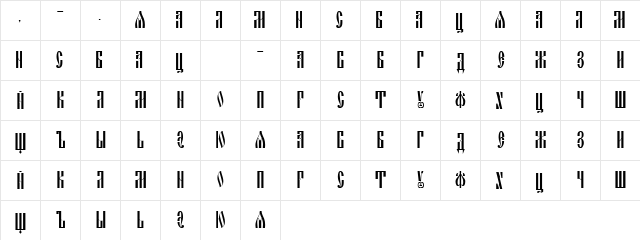
Slavjanic Normal
Design Context for Slavjanic Typeface
Slavjanic is a composed and adaptable typeface that performs quietly and consistently across a wide range of design contexts.